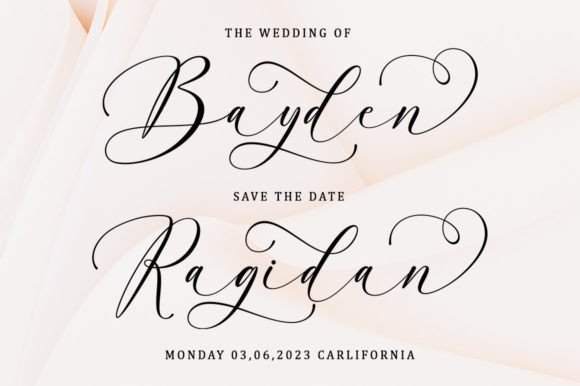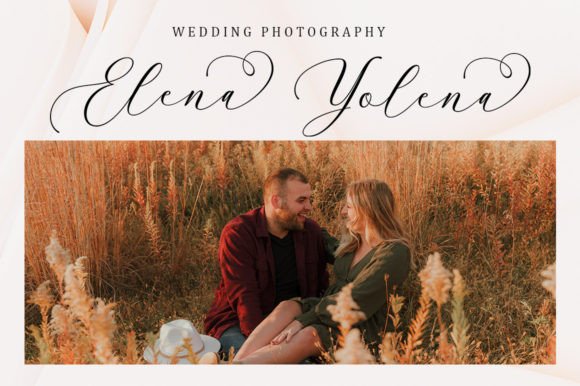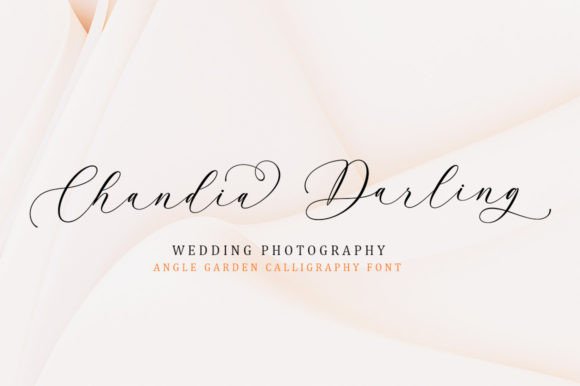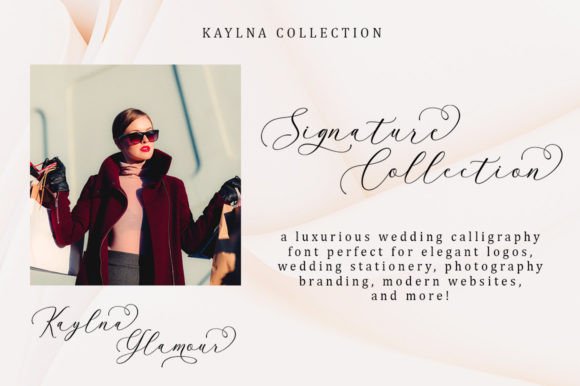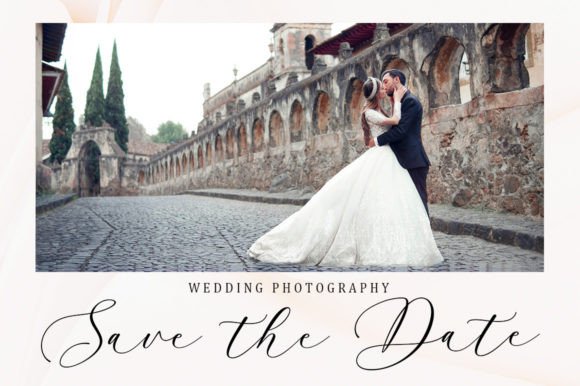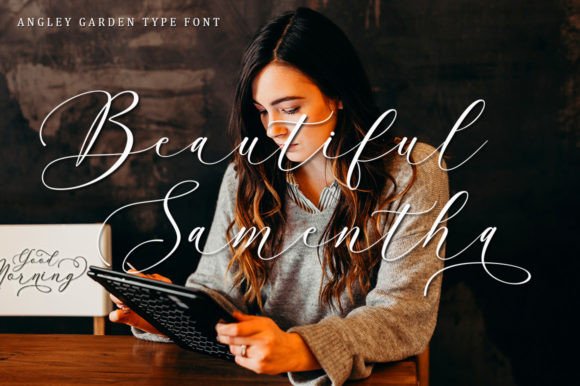
The Perfect Script Font for Your Creative Masterpiece
Have you ever been in a brainstorming session, pouring over design ideas and scribbling down notes in a font that just doesn’t feel right? You know, that moment when everything clicks, and you envision your design in a beautiful, elegant script font? That’s exactly what happens when you discover the Angley Garden Font.
Angley Garden is a stunning script font that exudes classic charm with a modern twist, making it perfect for a wide range of creative projects. This lovely handwritten font is ideal for invitations, labels, restaurant menus, logos, fashion, makeup, stationery, and more. Whether you’re a seasoned designer or just starting out, the Angley Garden Font is a valuable addition to your toolkit, offering endless possibilities for creativity and self-expression.
Angley Garden Font Key Features
- Unique Characteristic: Whimsical, hand-drawn design with intricate details and floral elements
Designer Review: Angley Garden Font
Overall, I found Angley Garden Font to be a charming and whimsical choice for those looking for a unique display font. ✨ The font’s intricate details and organic feel make it perfect for creating eye-catching headlines and titles.
Here are some of the things that work well in Angley Garden Font:
- ✨ Elegant, handwritten feel that adds a touch of sophistication to any design
- ✨ Wide range of customization options, including font sizes, colors, and line spacing
- ✨ Highly legible, making it suitable for both digital and print media
However, I did encounter some limitations with Angley Garden Font:
- ⚠️ Limited character set, which may cause issues for users who need to type in non-English languages
- ⚠️ May not be suitable for body text due to its large size and ornate design
- ⚠️ Can be difficult to pair with other fonts due to its unique, handwritten style
Overall, I would recommend Angley Garden Font for designers who want to add a touch of elegance and whimsy to their designs. However, it may not be the best choice for every project, and users should carefully consider the font’s limitations before using it.
Getting the Most Out of Angley Garden Font
Use the Angley Garden font for wedding invitations, garden-themed designs, and vintage-inspired projects.
Experiment with different font sizes, colors, and styles to create unique and eye-catching designs.
Wedding invitations, garden-themed designs, vintage-inspired projects, and botanical illustrations.
Use the Angley Garden font to add a touch of elegance and sophistication to your designs.
Alternatives to Angley Garden Font
Great Vibes is a modern, elegant script font ideal for creating a sophisticated and elegant look. It’s perfect for wedding invitations, luxury branding, and high-end marketing materials. Great Vibes is more refined and polished compared to Angley Garden Font, making it a great choice for those who want a more sophisticated look.
Pacifico is a beautiful, cursive font with a relaxed and casual feel. It’s great for creating a beachy or tropical vibe, perfect for summer campaigns, travel brochures, or outdoor advertising. Pacifico is more laid-back and casual compared to Angley Garden Font, making it a great choice for those who want a more relaxed look.
Carolyna Pro is a elegant, high-end script font with a luxurious feel. It’s perfect for creating a sophisticated and high-end look, ideal for luxury branding, high-end marketing materials, and wedding invitations. Carolyna Pro is more refined and polished compared to Angley Garden Font, making it a great choice for those who want a more sophisticated look.
Alex Brush is a beautiful, elegant script font with a classic feel. It’s perfect for creating a sophisticated and elegant look, ideal for luxury branding, high-end marketing materials, and wedding invitations. Alex Brush is more refined and polished compared to Angley Garden Font, making it a great choice for those who want a more sophisticated look.